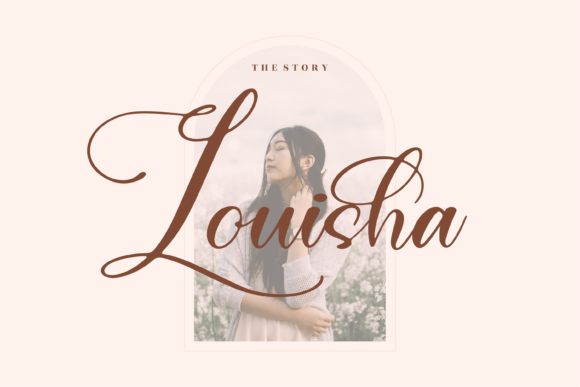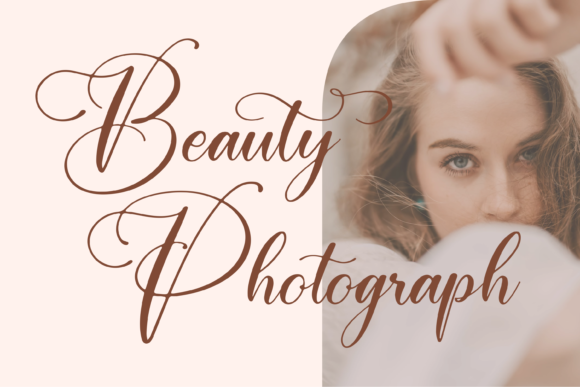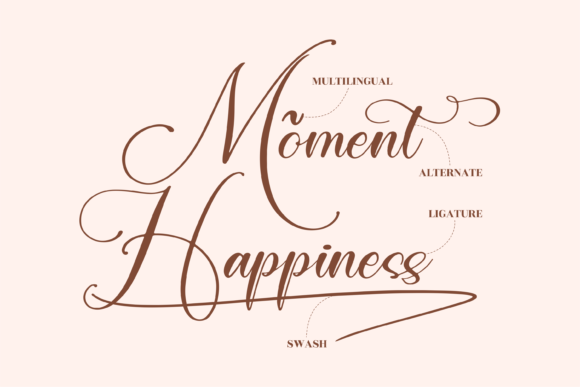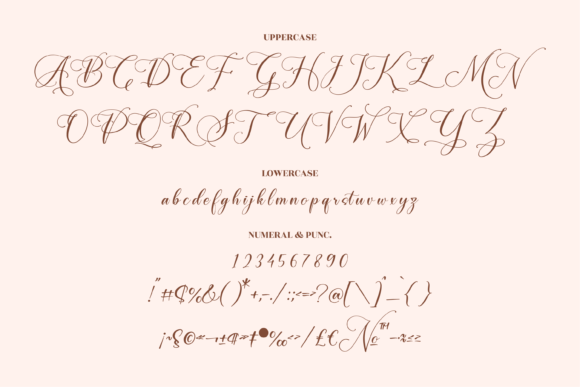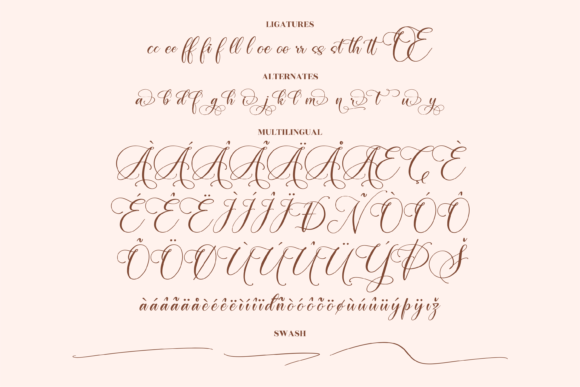
About Adelyna Font
Adelyna is a ravishing and delicate script font that exudes elegance and class. This font was particularly crafted for those who need a beautiful and refreshing look to their designs.
Adelyna is PUA encoded which means you can access all glyphs and swashes with ease!